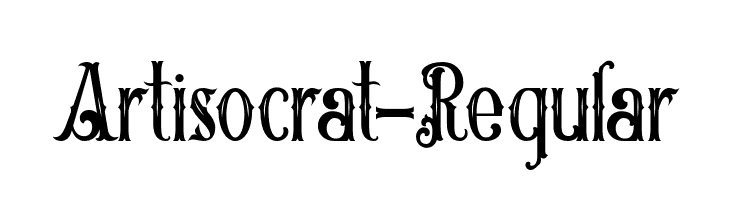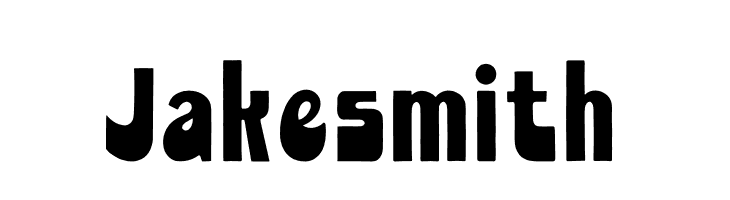
A bold, distressed font with a grunge, stencil-like appearance.
A dynamic and expressive handwritten font with fluid strokes and natural flow.
An ornate, decorative font with intricate swirls and embellishments.
A bold, italic font with dynamic slanted letterforms and a modern style.
A bold, rounded font with a playful and chunky style.
A bold, outlined font with a modern and eye-catching design.
A bold, angular, italic font with a modern, geometric style.
A bold, semi-italic font with a modern, futuristic style and narrow, slanted characters.
A set of bold, clear directional arrow symbols for road signage.
A bold, playful font with a retro vibe and unique character styling.